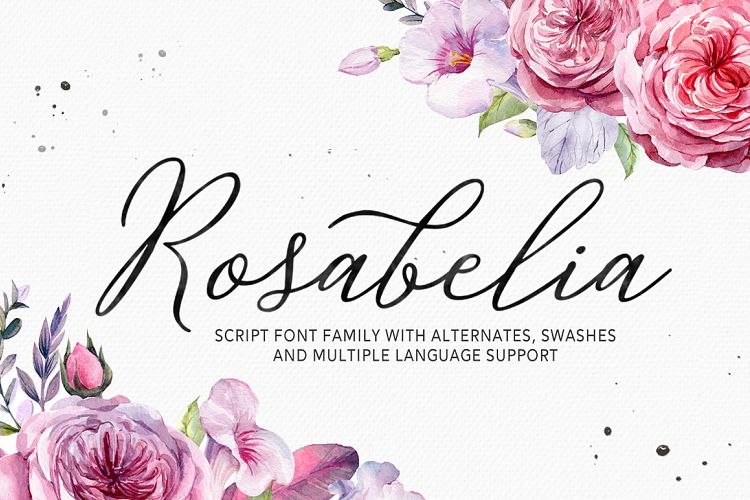
Introducing Rosabelia Font: The Script of Elegance and Grace
Rosabelia, a creation of the esteemed Solidtype, transcends the ordinary, ushering in a realm of elegance and casualness that is simply breathtaking. This modern script font family captivates with its intricate details, flowing curves, and playful touches that breathe life into your designs. Rosabelia is a symphony of visual artistry, a captivating melody of lines and strokes that will elevate your creations to new heights.
Unleash the Enchantment of Rosabelia: A World of Typographic Possibilities
With Rosabelia, you hold the key to a universe of typographic exploration. Its vast collection of stylistic alternates, ligatures, and swashes empowers you to craft typography that is both captivating and utterly unique. Each character dances upon the page, imbued with personality and charm, inviting your imagination to soar. Experience the joy of creating harmonious compositions, where words and emotions intertwine, telling stories that resonate with your audience.
Craft Timeless Masterpieces with Rosabelia: A Legacy of Beauty
Rosabelia's versatility knows no bounds, making it the perfect companion for an array of design endeavors. From the grandeur of special event invitations to the intimacy of personal correspondence, Rosabelia adds a touch of sophistication and timeless charm. Its graceful presence adorns print materials with an air of elegance, while its digital allure captivates audiences on websites and social media platforms. With Rosabelia, your creations will leave a lasting impression, etching themselves into the hearts and minds of all who encounter them.
Embrace Rosabelia: A Journey of Creative Expression
Rosabelia is more than just a font; it's an invitation to embark on a journey of creative expression. Its versatility empowers you to tell stories, evoke emotions, and share your unique perspective with the world. Whether you're a seasoned designer or just beginning your creative journey, Rosabelia will guide you, inspiring you to push the boundaries of your imagination and produce masterpieces that will astound and inspire.
Seize the Moment: Embrace the Beauty of Rosabelia Today